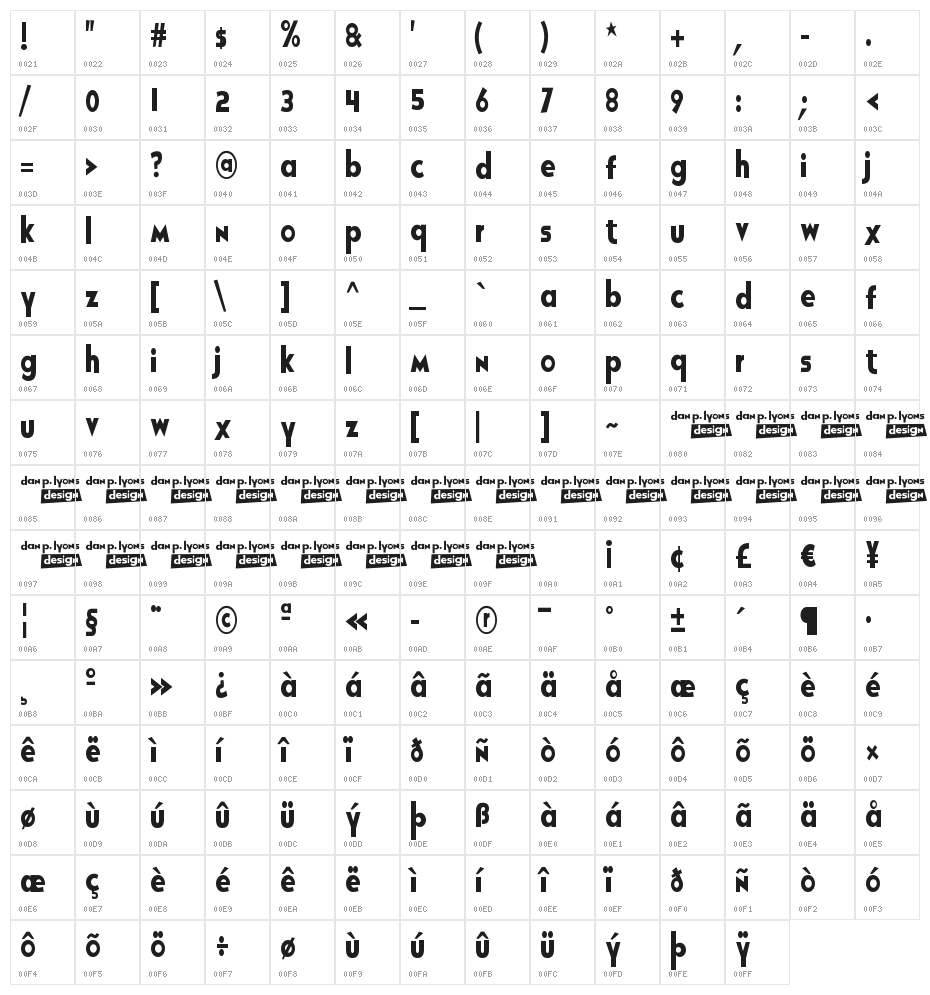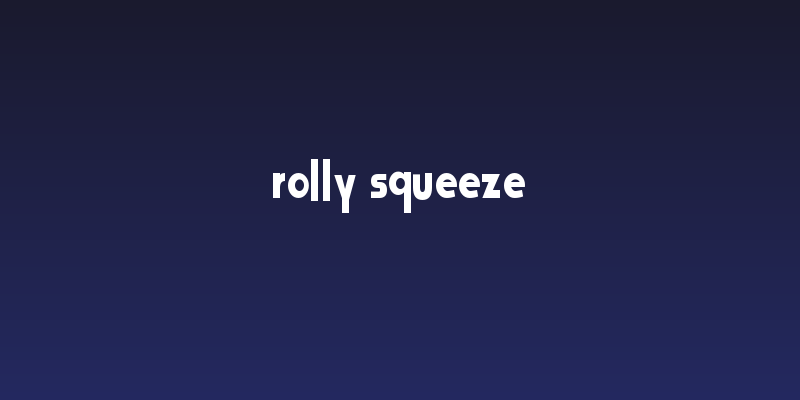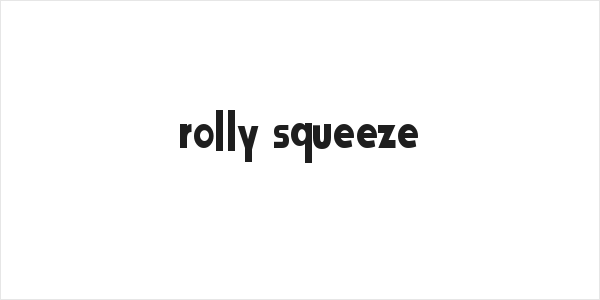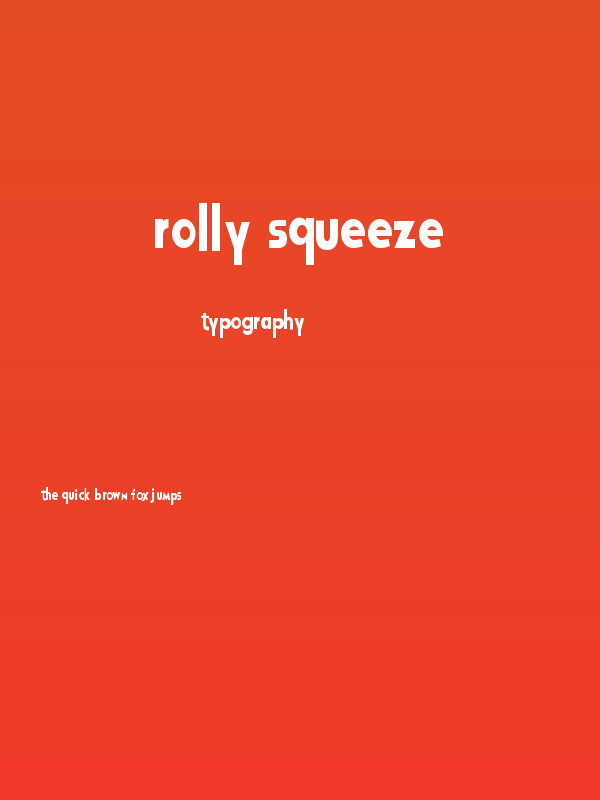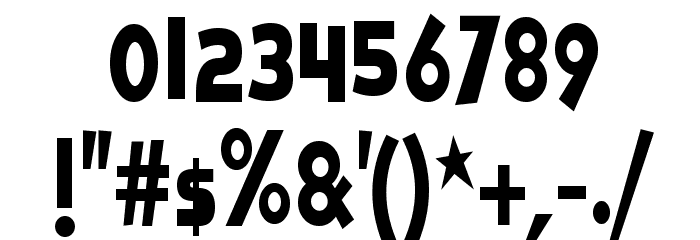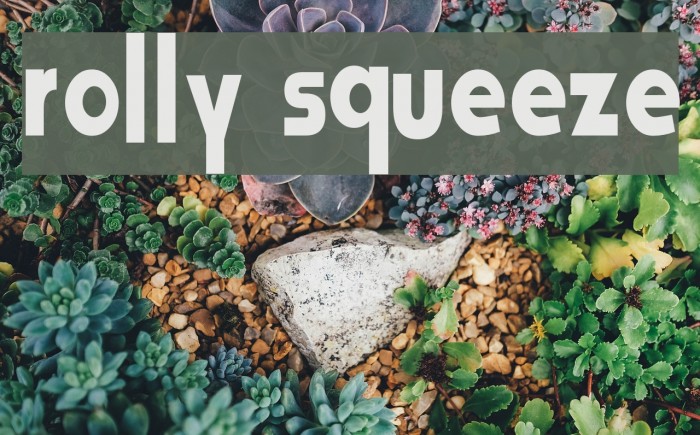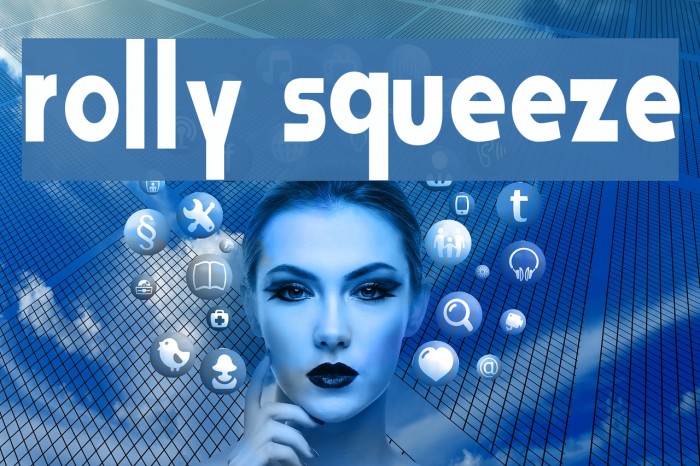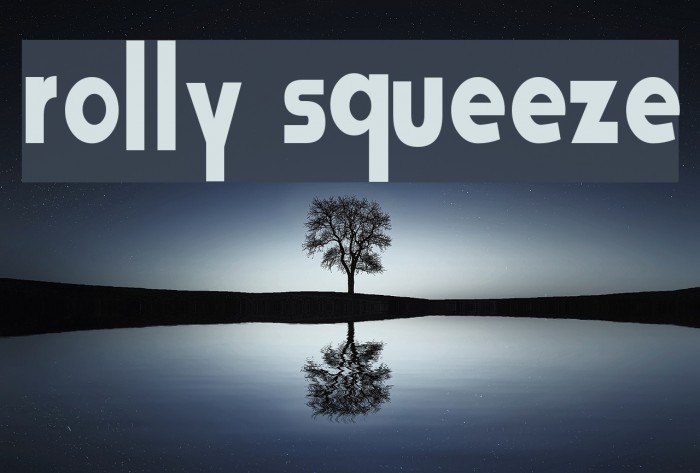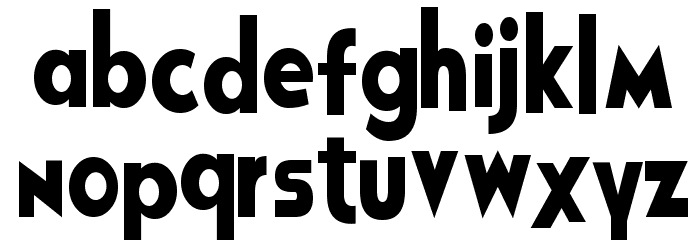
Rolly Squeeze Font
Rolly Squeeze Description
This font features bold, geometric shapes with a playful and modern aesthetic. The characters are uniformly thick, giving a strong presence on the page. The rounded edges and consistent stroke width contribute to a friendly and approachable feel. The uppercase and lowercase letters maintain a cohesive style, with a slight variation in the lowercase letters that adds a touch of uniqueness. The numbers and special characters are designed to match the overall bold and rounded style, ensuring consistency across all text elements.
| Proposed Projects | Ideal for branding projects, children's books, playful packaging designs, and eye-catching headlines. |